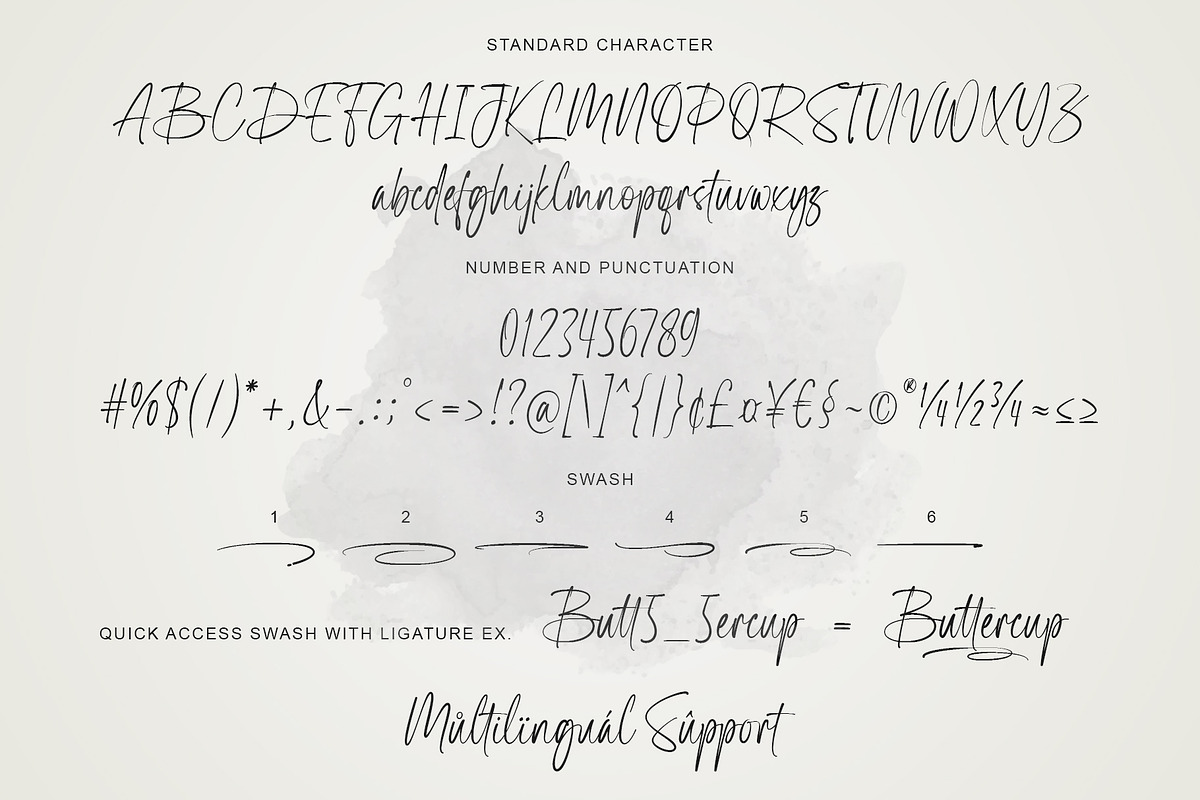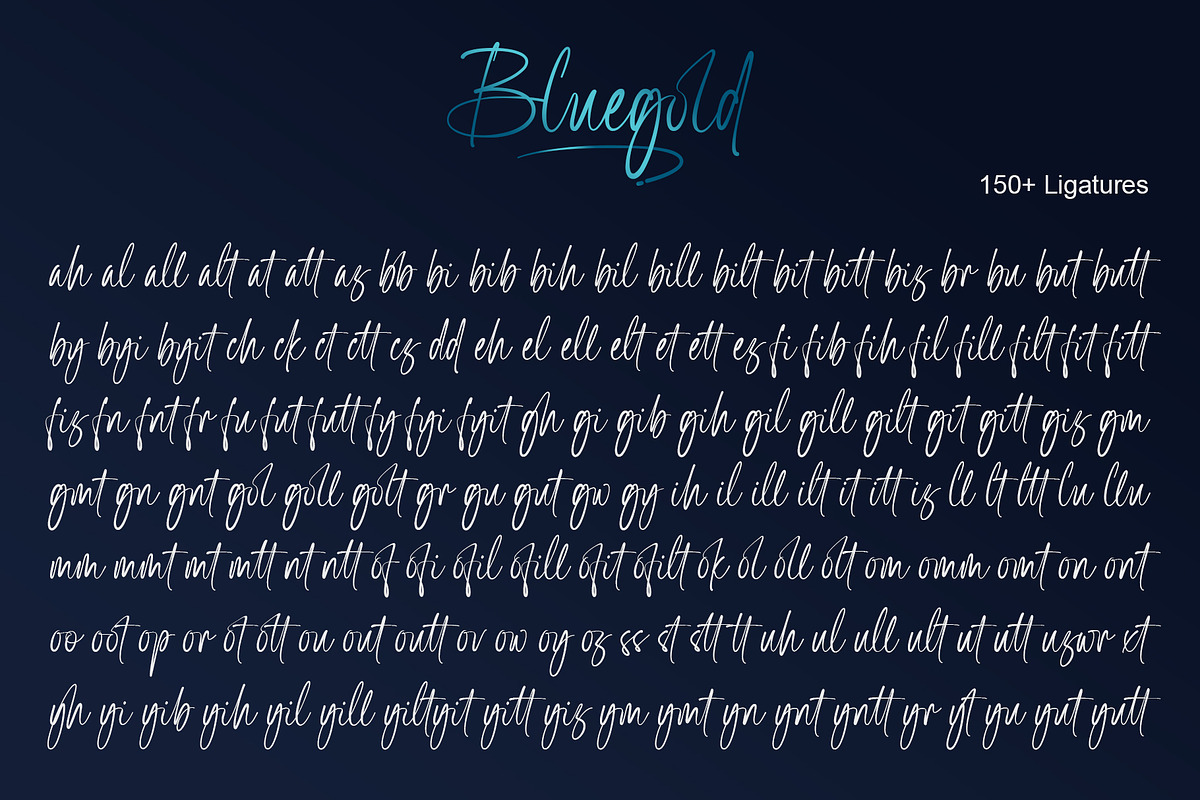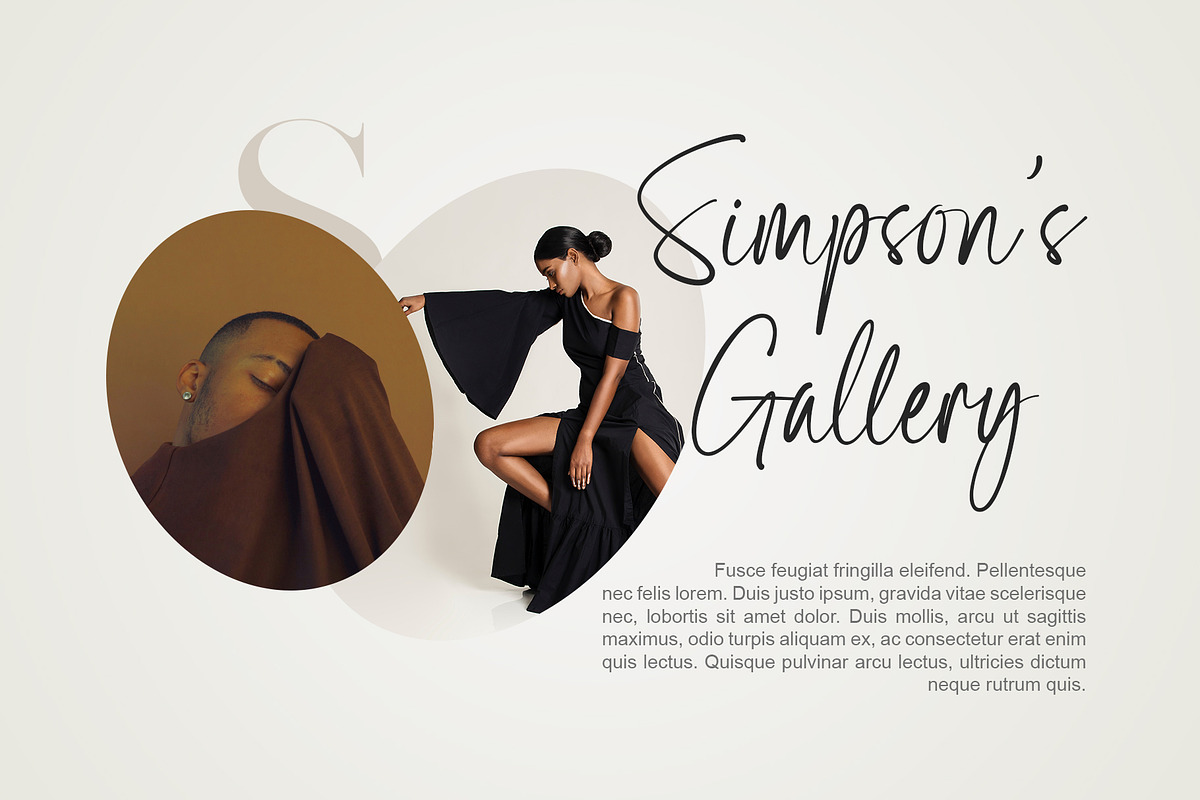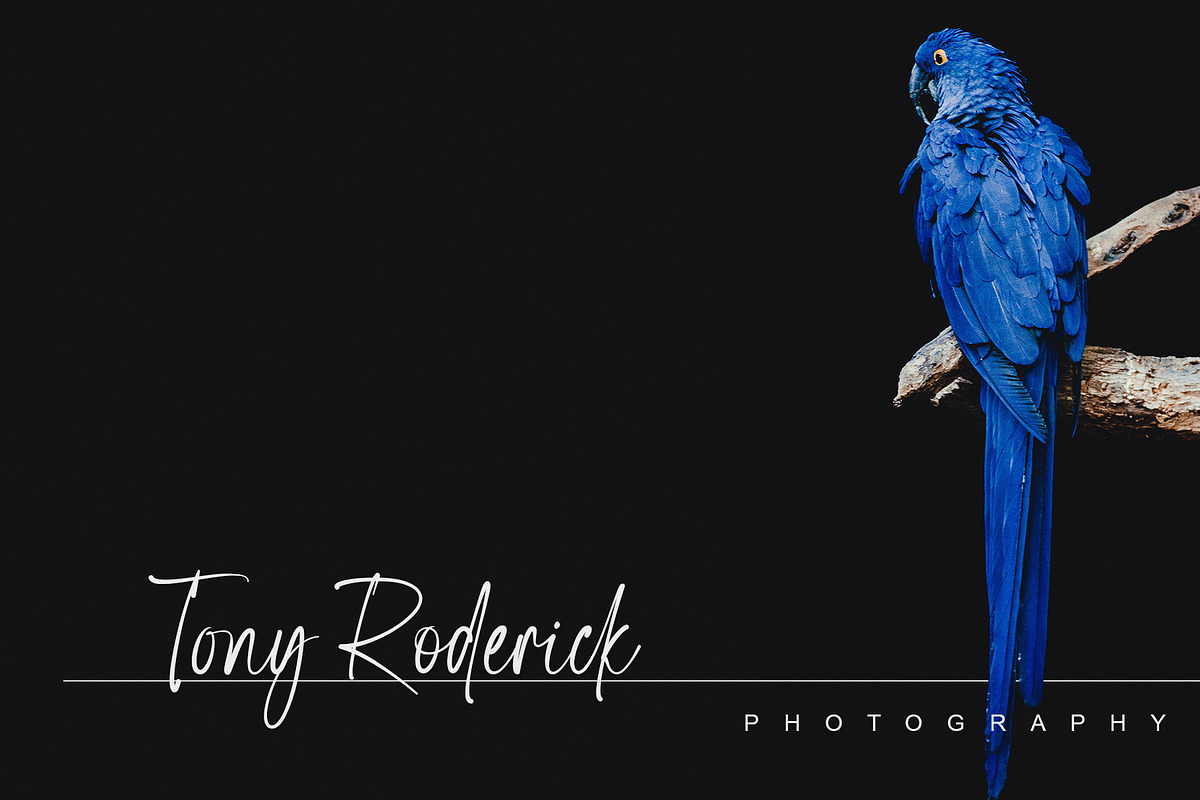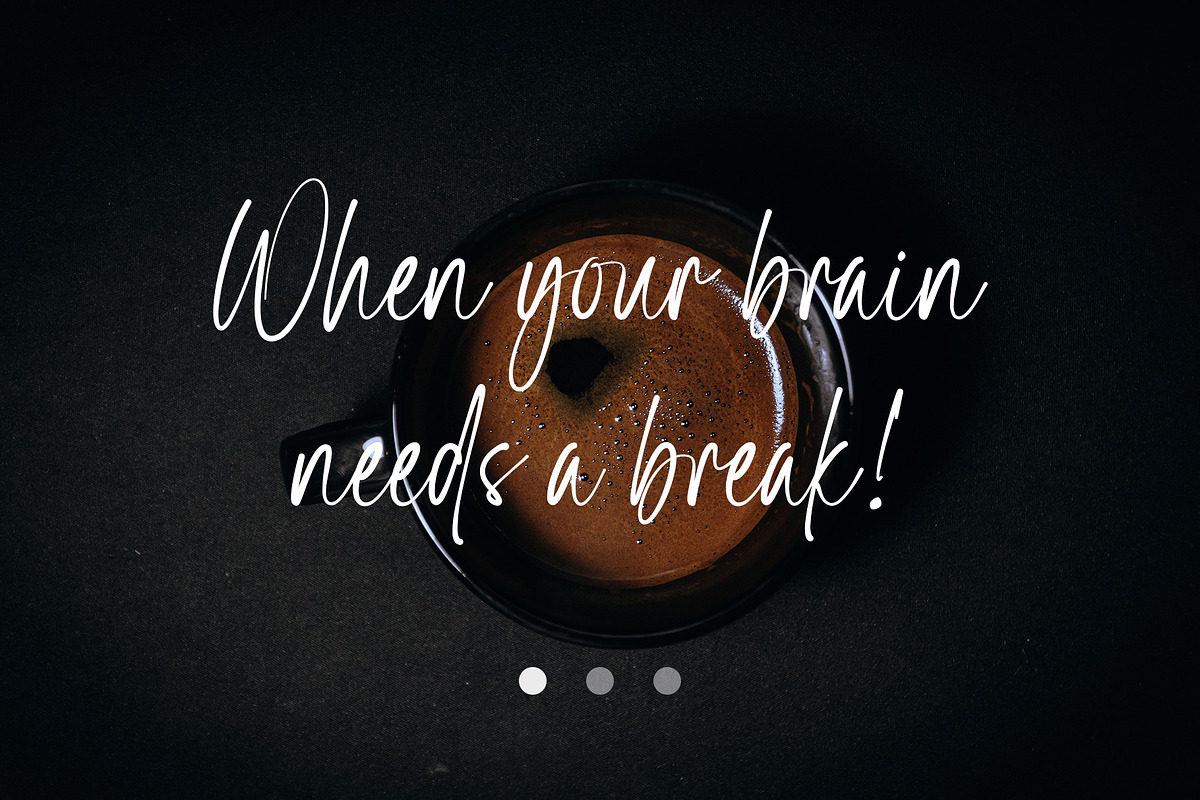
Bluegold | Modern Calligraphy
Bluegold is a beautiful modern calligraphy font, with 150+ Ligatures. Bluegold Font is perfect for many different project such as logos & branding, invitation, stationery, wedding designs, social media posts, advertisements, product packaging, product designs, label, photography, watermark, special events or anything.
- 150+ Ligatures
Quick access Swash
- Add number (1-6) + underscore + number (1-6). Ex: 1_1, 2_2, 3_3, 4_4, 5_5, 6_6